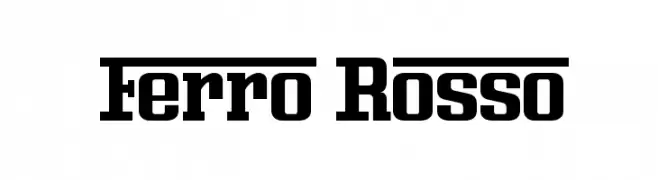
A modern, flowing script font with elegant, slanted characters.
A playful, bold font with rabbit ear-like ascenders and rounded characters.
A sleek, modern font with thin, geometric strokes and a minimalist aesthetic.
A bold, geometric font with strong, consistent strokes and an industrial feel.
A clean, modern semi-bold font with a friendly and balanced design.
A decorative and intricate font with geometric and abstract elements.
A bold, playful font with whimsical lowercase letters and thick strokes.
A playful font combining geometric and cursive elements with bold strokes.